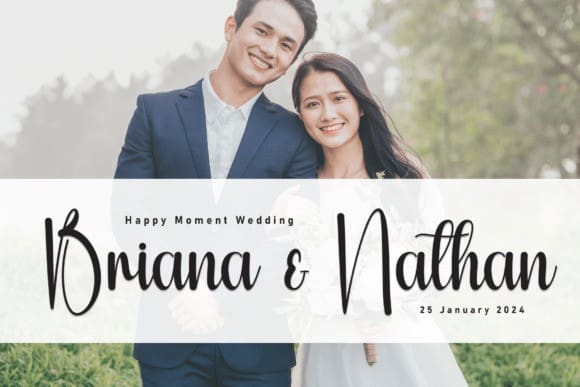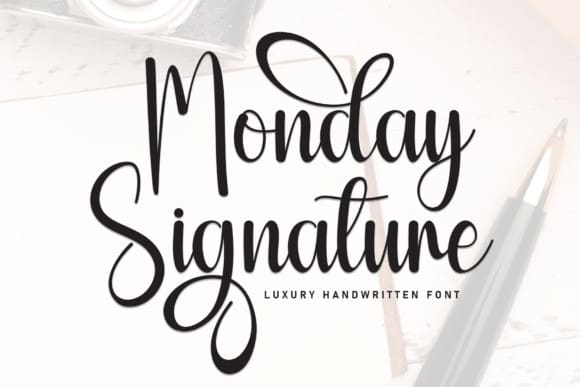
Monday Signature Font
Monday Signature Font a unique masterpiece of creativity designed to transform your projects into thrilling works of art. This innovative, stylish font is ideal for adding a distinctive touch to wall art, creating breathtaking wedding invitations, or giving a striking identity to your social media posts and logos. It’s perfect for advertisements that crave attention, product packaging that needs a unique twist, and any design project where unique handwriting could make a difference. This font spells elegance on labels, adds a flourish to photography watermarks, personalizes invitations, and gives stationery a sophisticated look.